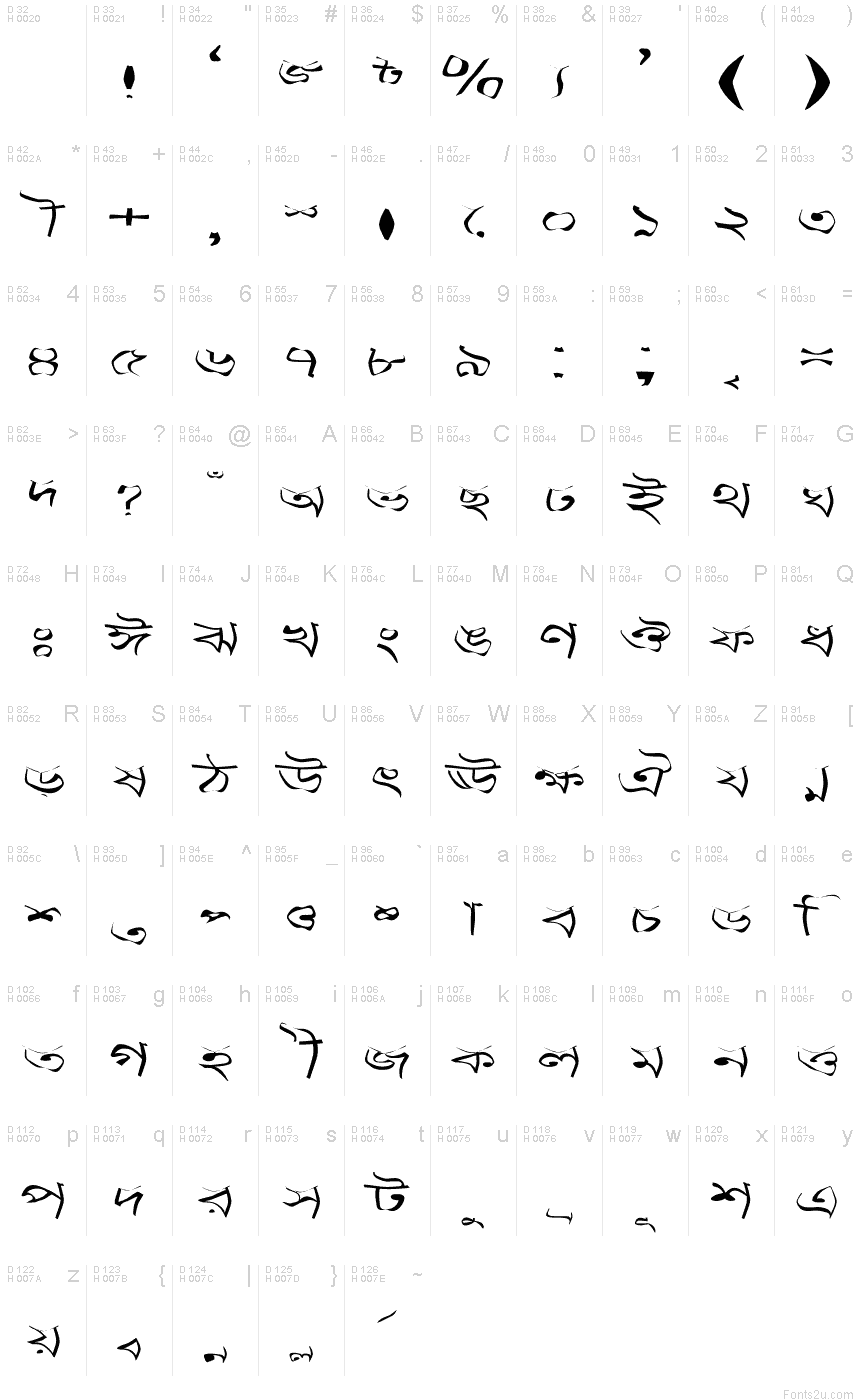
Progoty Warp from Chetona Software Cafe is a free warped Bangla display font with broad flowing forms and sharply pinched joins. Its letters stretch and buckle across the line, mixing oversized rounded sweeps with sudden spikes and dramatic changes in stroke width.
Brands built around experimental music or youth culture could use its restless silhouette for logos, event posters, and merchandise. Album covers and digital graphics are equally convincing uses.